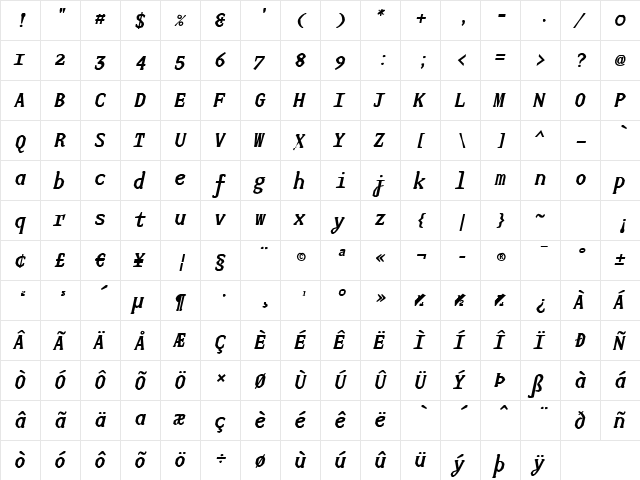
JUstice Mono BoldOblique
JUstice Mono brings the precise, column-aligned rhythm of monospaced typography to designs that value technical clarity and systematic order. The slanted form adds forward momentum and visual energy. Its bold stroke weight gives it real presence on the page.